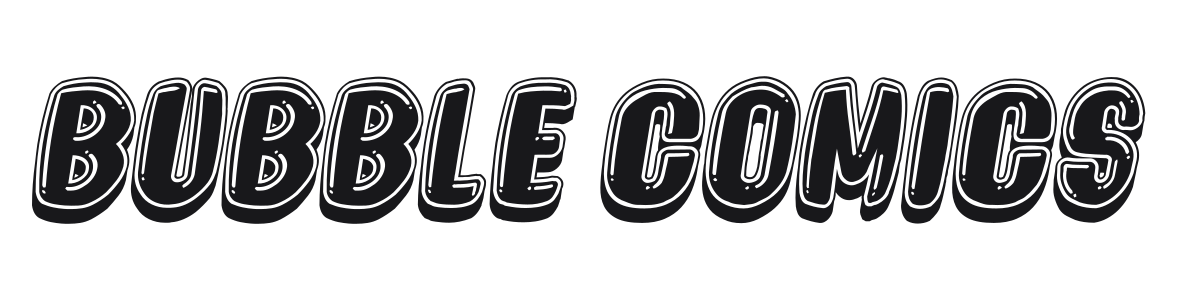
Bubble Comics
Bubble Comics is a bold rounded italic display font with a full layered 3D treatment: thick outline, white inline stroke, and a deep shadow behind each character. The effect is lifted straight from superhero comic book covers of the Silver Age. It hits hard at large sizes and carries a lot of nostalgic energy.